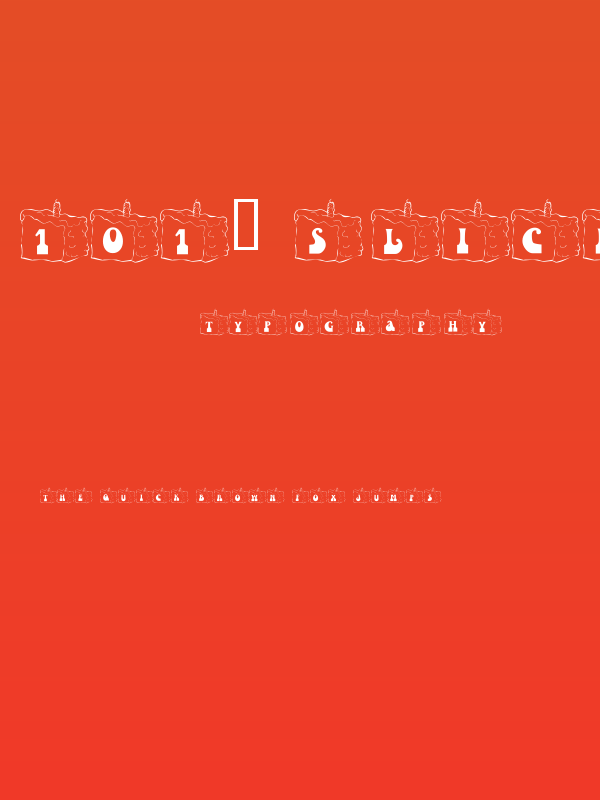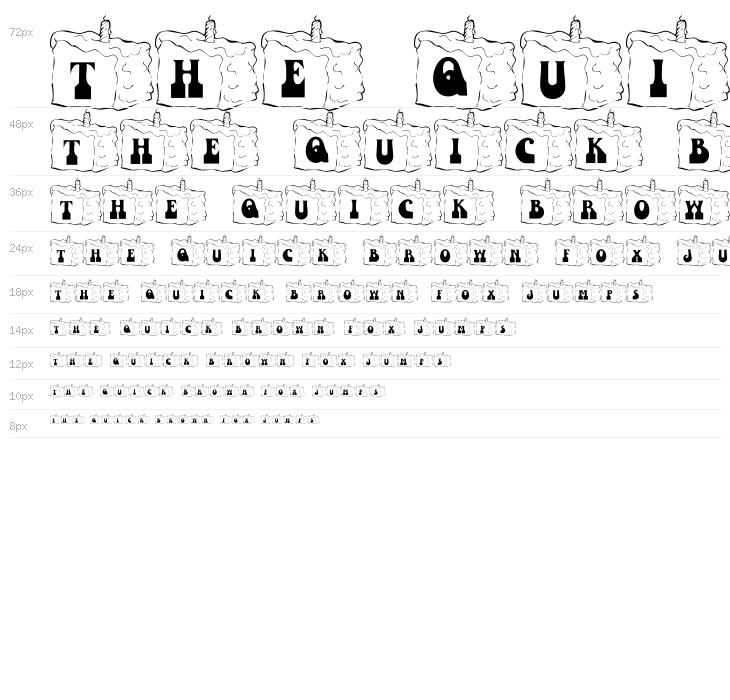
101! Slice of Cake Font
101! Slice of Cake Description
This whimsical and playful font features each character enclosed within a slice of cake, complete with icing and a candle on top. The letters are bold and stand out against the detailed cake design, making it a unique choice for festive and celebratory themes. The uppercase and lowercase letters are consistent in style, maintaining the cake slice motif. The numbers and special characters also follow this design, ensuring a cohesive look across all characters. The font's decorative nature makes it ideal for projects that require a fun and lighthearted touch.
| Proposed Projects | Ideal for birthday invitations, party banners, children's book covers, and playful branding projects. |